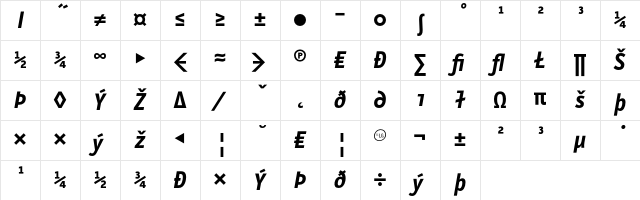
Complete LetterGothicMono BoldItalicExp glyph index. Displaying only characters natively supported by LetterGothicMono BoldItalicExp font.
LetterGothicMono uses fixed-width spacing throughout, giving it the structured, systematic character associated with coding environments and technical documentation. The slanted form adds forward momentum and visual energy. Its bold stroke weight gives it real presence on the page.